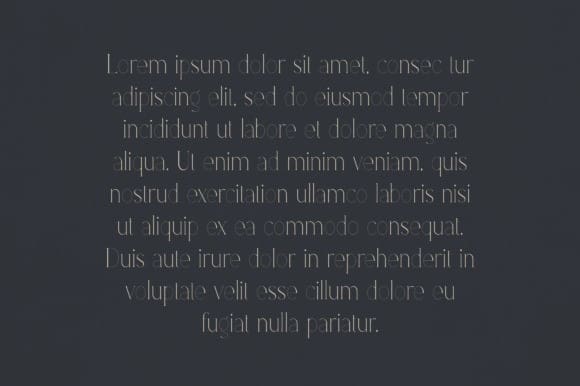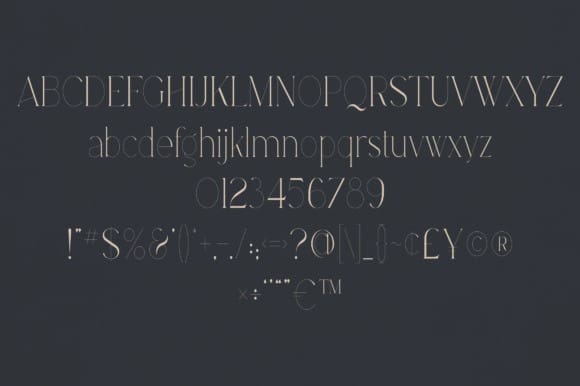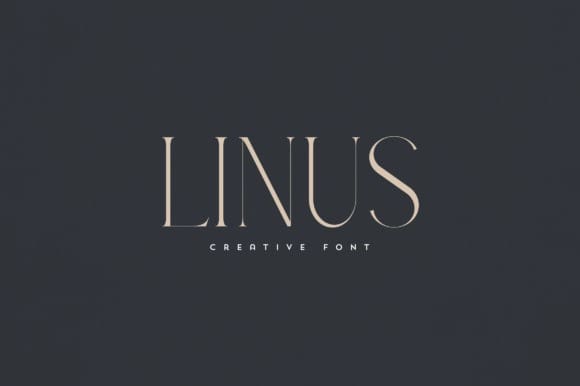
Linus Font
Linus Font is an elegant and versatile font that will make your typography truly unique! It will enchant every logo, branding, headline, or plain text!